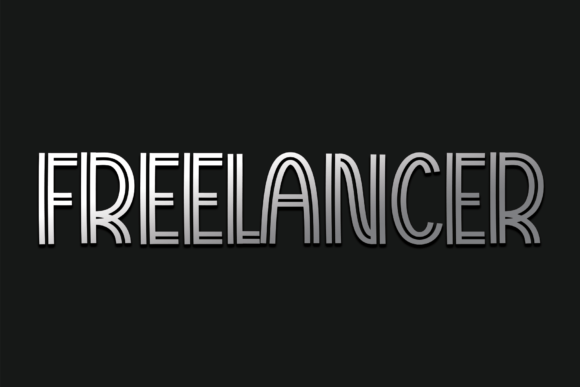
Introducing Freelancer Font, the ultimate sans serif font family that will transform your designs into captivating masterpieces. Experience the allure of modern typography with Freelancer's meticulously crafted letters, designed to evoke elegance and sophistication in every project.
Unleash your creativity and make a bold statement with Freelancer's stunning wall displays, adding a touch of artistry to your living spaces. Craft enchanting wedding invitations that reflect the joy and romance of your special day. Elevate your social media presence with logos that exude professionalism and style.
Capture the attention of your audience with advertisements that speak volumes. Design product packaging and labels that command attention on store shelves. Elevate your photography with watermarks that add a touch of exclusivity. Create stationery that reflects your unique personality, leaving a lasting impression on your correspondence.
With Freelancer Font, the possibilities are endless. Dive into a world of creativity and let your designs shine. Experience the beauty of modern typography and transform your projects into visual masterpieces. Embrace the power of Freelancer Font today and unlock a world of design possibilities.